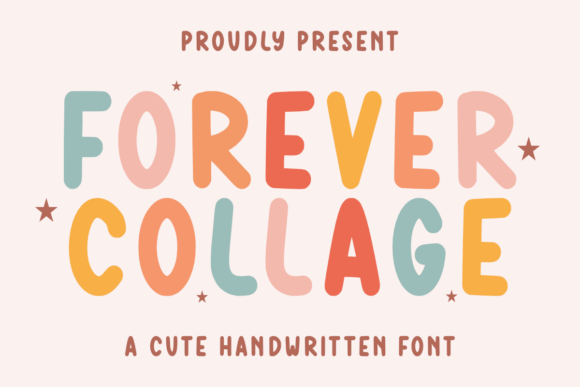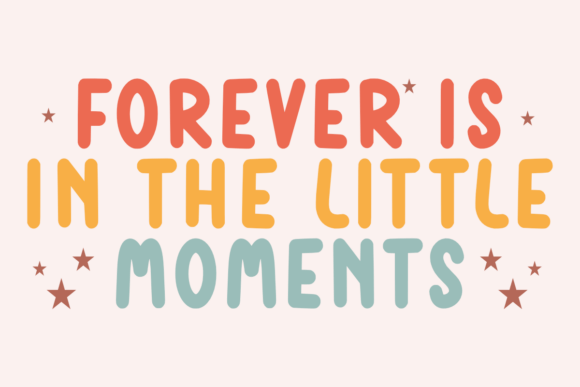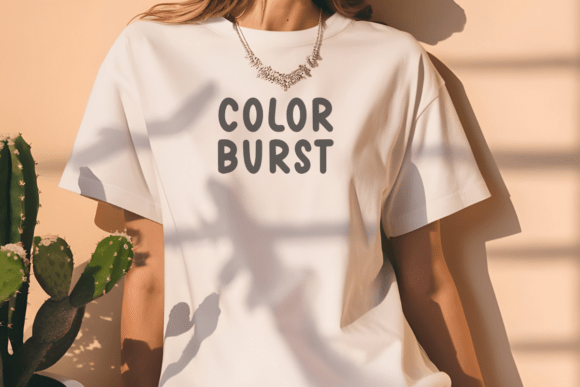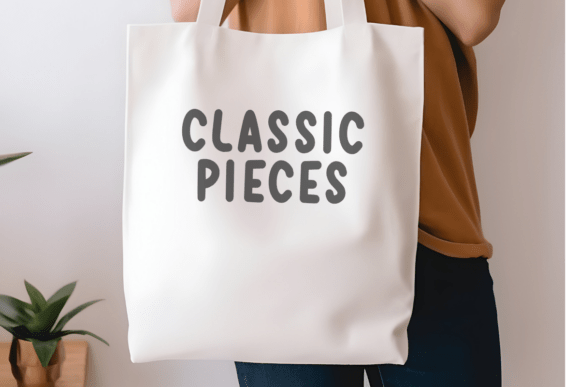
Forever Collage Font
About the Forever Collage Font
Crafted with precision, the Forever Collage Font is ready to bring your ideas to life. Forever Collage is a bubbly and joyful handwritten font with a youthful spirit. The rounded characters and bright, multi-color styling make it ideal for playful branding, kids’ content, or creative DIY projects. It’s fun, friendly, and crafted to add a pop of happiness to any design.
Forever Collage thrives in applications requiring a lighthearted and approachable aesthetic. It’s perfect for short headlines, social media graphics, invitations, and packaging for products aimed at children or young adults. Avoid using it for body text or lengthy passages; its playful nature can become overwhelming and hinder readability.
This font’s bubbly energy pairs well with clean sans-serif fonts like Montserrat or Open Sans for a balanced contrast. For a more playful feel, consider pairing it with a rounded geometric sans-serif such as Circular Std. A touch of elegance can be added with a simple serif like Lora, providing a sophisticated counterpoint to Forever Collage’s youthful exuberance.
Forever Collage’s core personality is undeniably joyful and friendly, making it a strong choice for brands focused on fun, creativity, and approachability. It exudes a sense of youthful optimism and works best when paired with design elements that share that same lighthearted spirit.
Forever Collage Font Usage Examples
Forever Collage Font Example